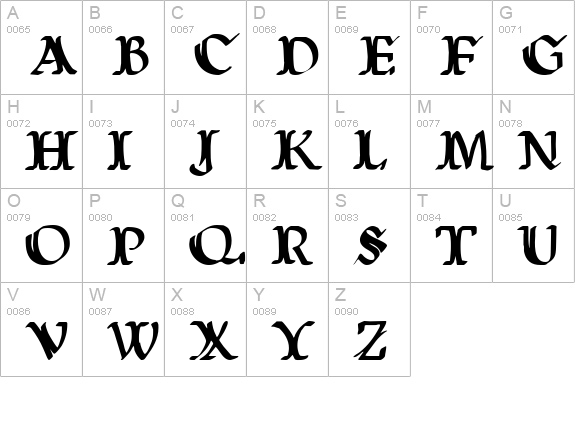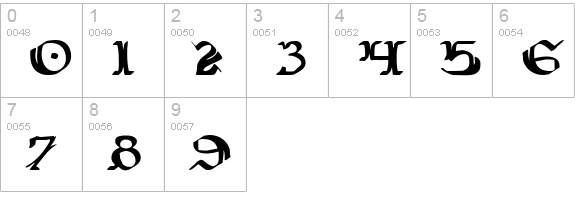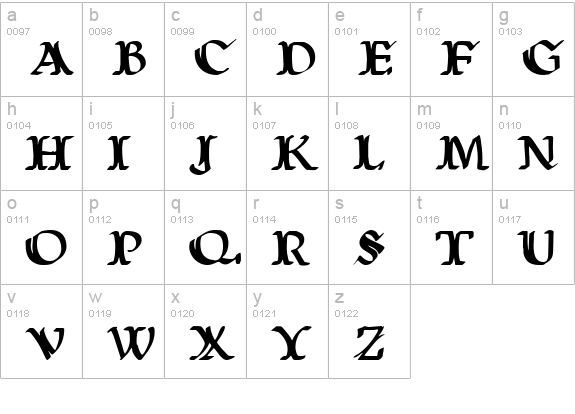
Wars of Asgard font is a bold and powerful typeface inspired by the legendary battles of Norse mythology. With its intricate details and strong presence, this font is perfect for creating impactful designs and adding a touch of epicness to your projects. Whether you're working on a poster, logo, or packaging design, Wars of Asgard font will make a bold statement. This font is available for free download at FontsMarket.com, making it accessible to designers and creatives looking to add a touch of Norse mythology to their work. Embrace the power of the gods with Wars of Asgard font and unleash your creativity with this stunning typeface.